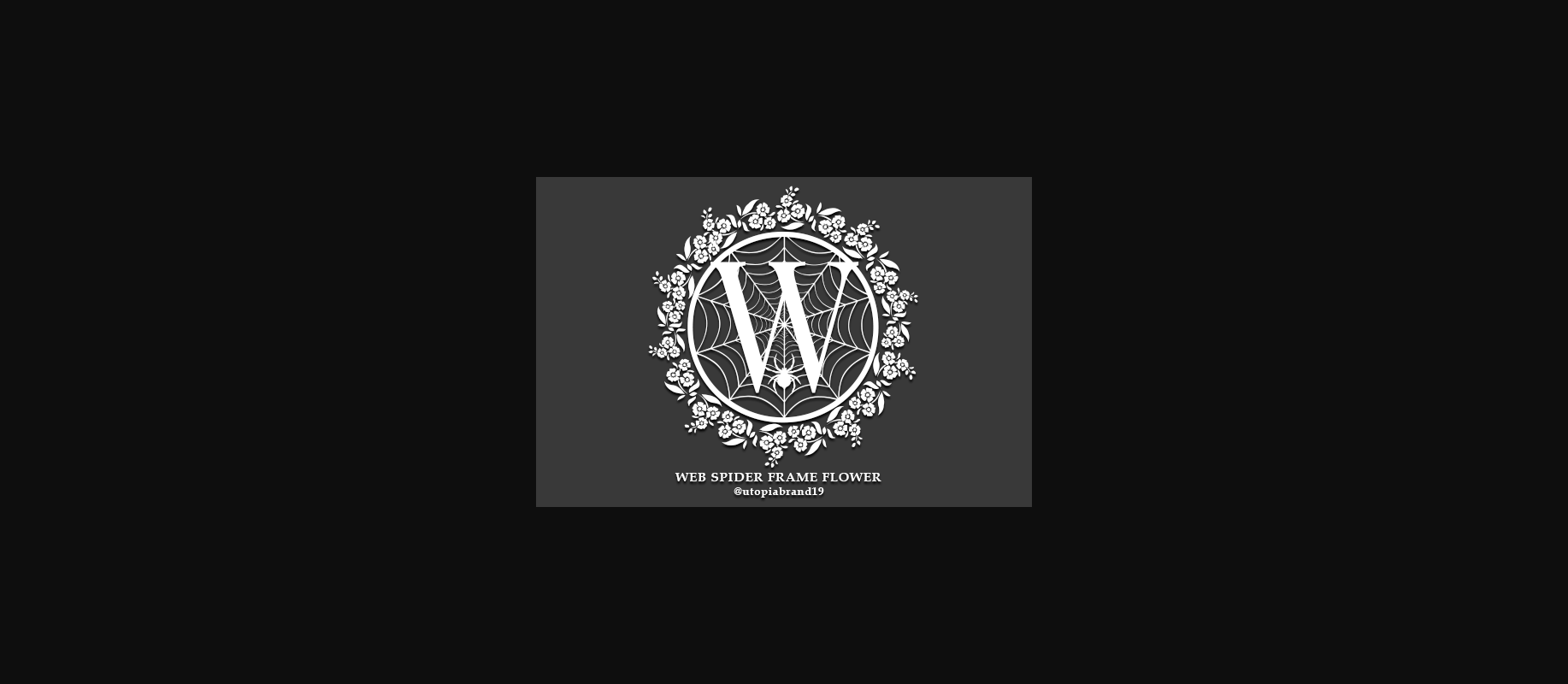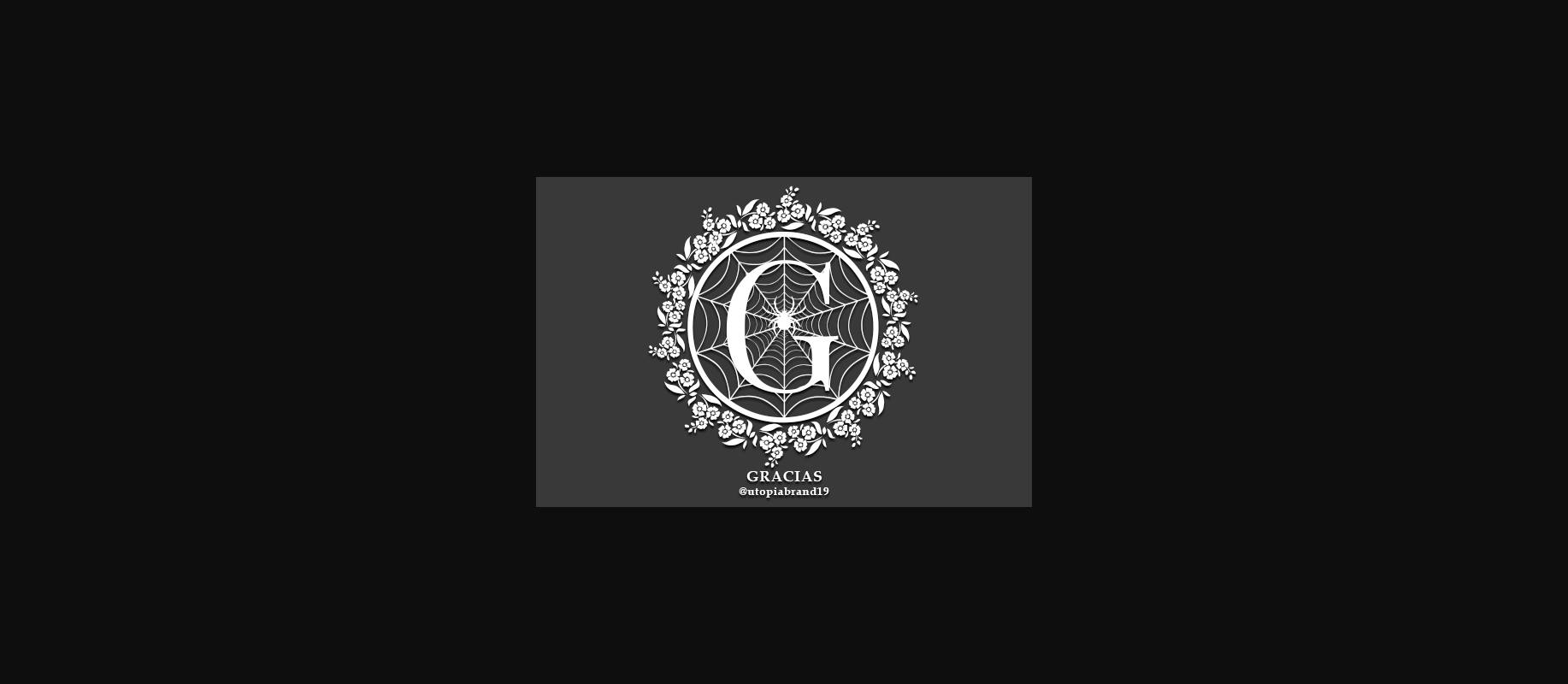
About Web Spider Frame Flower Font
Web Spider Frame Flower is a cool and highly detailed decorative font. Whether you use it for cartoon related designs, children games or just any creation that requires a lovely touch, this font will be an amazing choice.